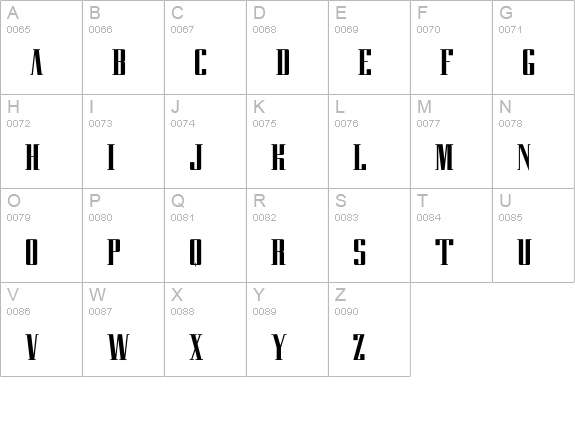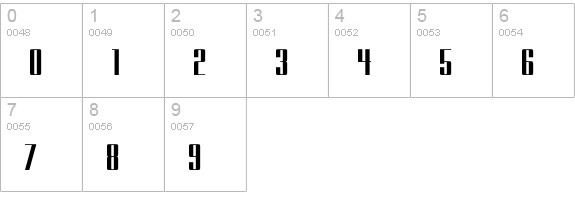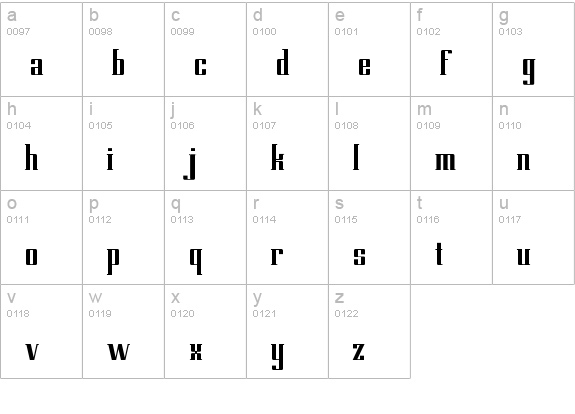
Glasnost font is a modern and stylish typeface that exudes elegance and sophistication. Its sleek lines and unique letterforms make it perfect for a wide range of design projects, from branding to editorial design. The clean and minimalist design of Glasnost font adds a touch of refinement to any project it is used in. What sets Glasnost font apart is that it is not only visually stunning, but also completely free to download. You can easily access this beautiful font at FontsMarket.com, where you can download it and start using it in your designs right away. Don't miss out on the opportunity to enhance your projects with the beauty and versatility of Glasnost font - download it for free today!